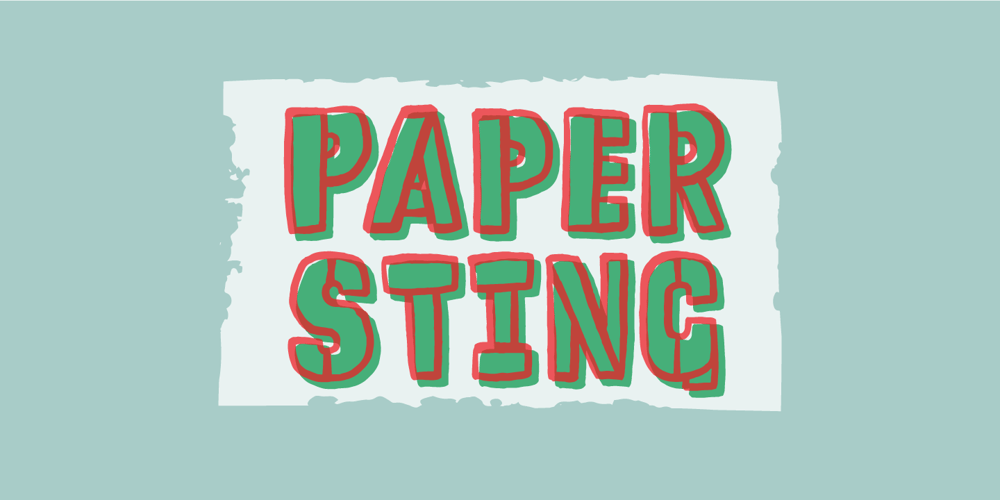
Paper Sting Stencil Font Family was designed by Jakob Fischer and published by PizzaDude.dk. Paper Sting Stencil contains 2 styles and family package options. I made Paper Sting using an inky pen. There is a great variation in the stroke width, which gives a very lively handmade feeling. Paper Sting comes in two versions: Regular and Stencil – mix them for cool realistic results. Of course there is multi-lingual support as well as contextual alternates, which means 5 different versions of each letter.